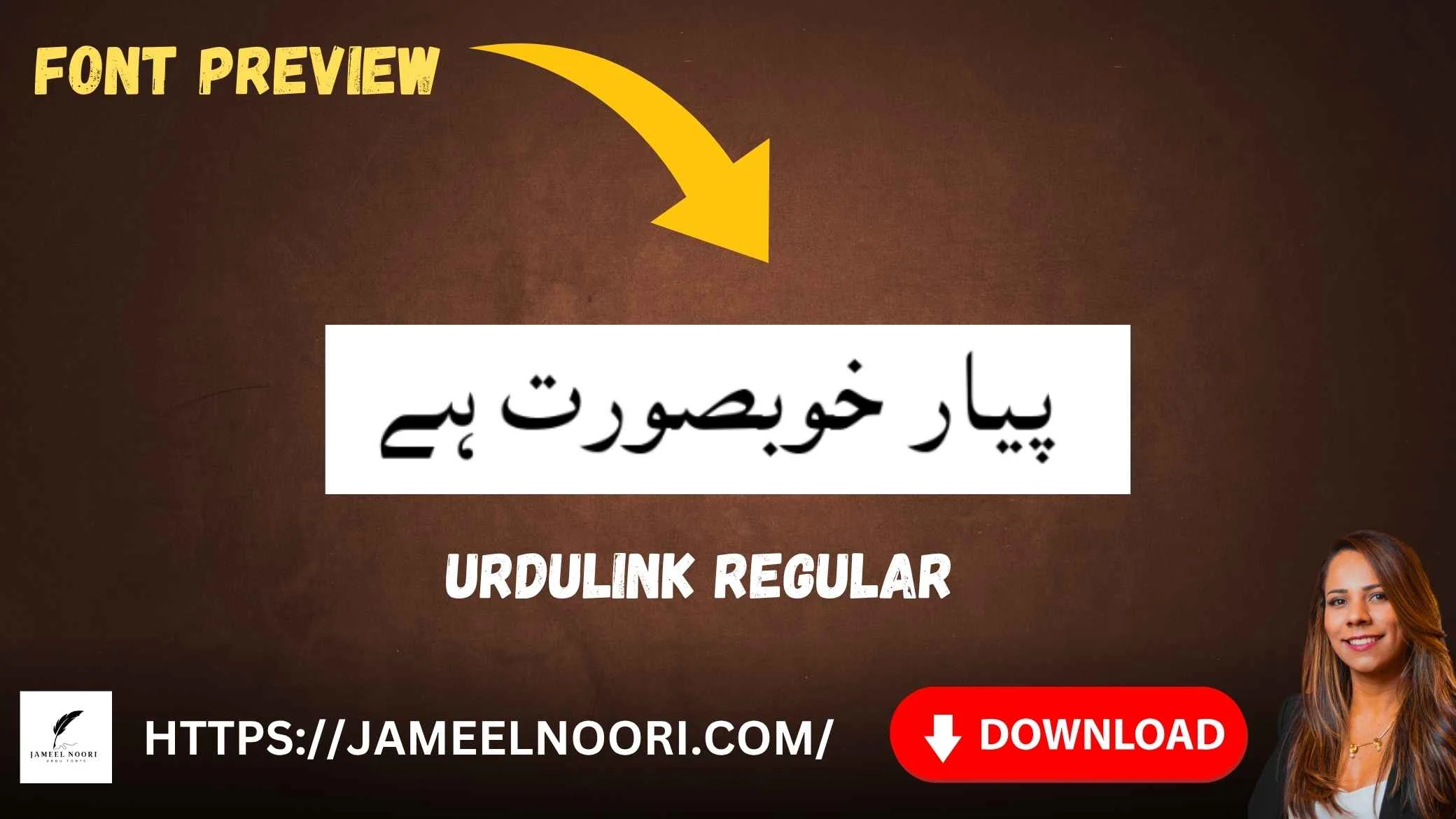
Introduction
The UrduLink Regular Font is one of the most elegant and classic Urdu typefaces available for free download in 2025. This TrueType Font (TTF) combines the traditional beauty of Urdu script with modern readability, making it ideal for both digital and print Urdu content.
Why Choose UrduLink Regular Font?
1. Smooth and Traditional Urdu Design
UrduLink Regular is known for its beautiful traditional Urdu letterforms. Each curve and stroke reflects the essence of the Urdu Nastaliq script while maintaining simplicity and readability.
2. Perfect for Digital Urdu Projects
It’s especially suitable for Urdu websites, social media posts, news graphics, and Urdu poetry banners.
3. Readable and Balanced Typeface
The font maintains even spacing and clean lines, making it perfect for both headings and body text in Urdu writing. It ensures that your Urdu content looks polished and easy to read.
4. Unicode Compatibility
Fully Unicode-supported, UrduLink Regular allows accurate Urdu text display across devices and browsers without distortions.
Best Uses of UrduLink Regular Font
You can use this font in a wide range of Urdu design projects, such as:
- 🖋️ Urdu Blog Titles – Makes headings look elegant.
- 🎨 Social Media Graphics – Perfect for Urdu posts and reels.
- 📜 Poetry Posters – Add a soft, artistic Urdu touch.
- 📰 News Websites – Ideal for readable Urdu headlines.
- 📖 Educational Materials – Great for Urdu textbooks or handouts.
- 🧾 Certificates & Flyers – Professional and refined look.
Design & Visual Features
- Smooth strokes with consistent italic-like flow.
- Ideal balance between boldness and lightness.
- Classic Urdu look that fits both modern and traditional designs.
- Compatible with Urdu, Persian, and Arabic scripts.
- Crisp letter edges ensure clarity even at smaller sizes.
Why Designers Love UrduLink Regular
Professional Urdu designers prefer UrduLink Regular for its aesthetic letter shapes and simple installation process. It’s versatile enough for print design, website typography, and multimedia use.
Its clean design works beautifully in Urdu poetry, news graphics, and creative headlines, allowing designers to showcase elegance without over-decoration.